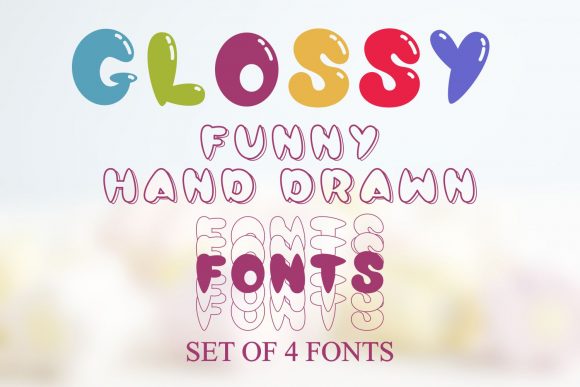
Step into the captivating world of Glossy, a display font that radiates fun, uniqueness, and authenticity! Its playful curves and bubbly personality will inject an irresistible charm into your designs.
With Glossy, you'll unlock a treasure chest of creative possibilities. Its irresistible allure will turn your words into vibrant expressions, making your messages shine with a playful twinkle. Whether it's a playful logo, an enchanting invitation, or a whimsical social media post, Glossy will elevate your designs to new heights!
Let your imagination soar as you explore the boundless potential of this dazzling font. Its playful spirit will inspire you to create designs that spark joy, evoke laughter, and leave a lasting impression on all who encounter them. Join the revolution of cuteness and make Glossy the shining star of your creative arsenal!